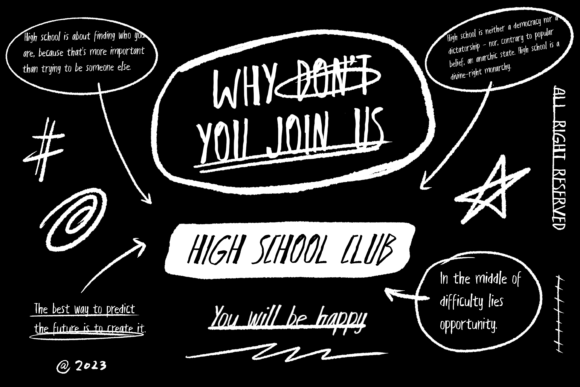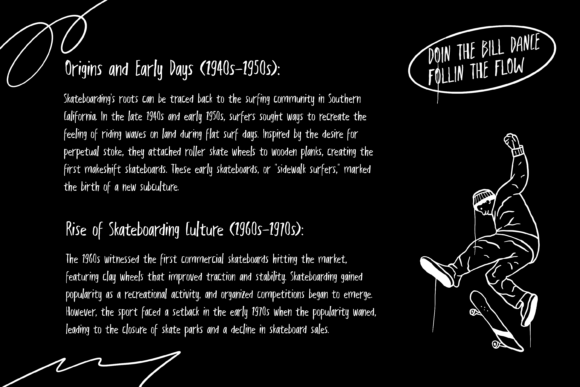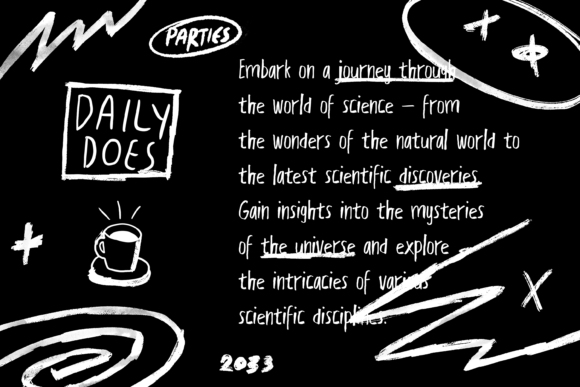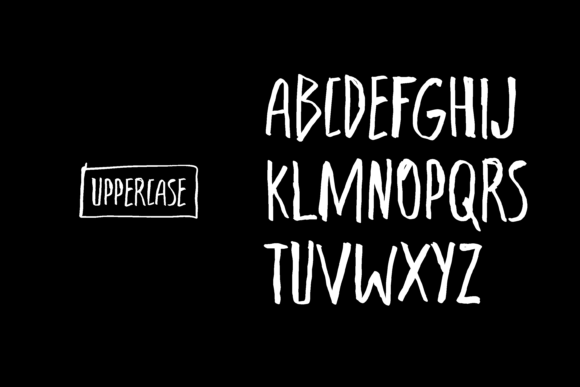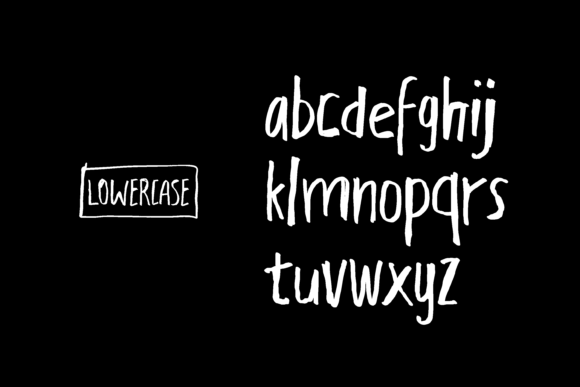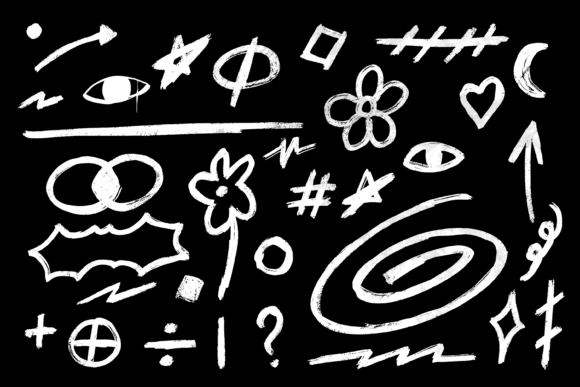
Introduction to Raw Poison Font
Have you ever stared at a blank canvas, waiting for the perfect font to bring your creative project to life? For designers, finding the right typography can be a daunting task, but what if you stumbled upon a font that not only complements your design but also adds a unique touch of authenticity?
Enter the Raw Poison Font, a game-changing design resource that’s about to revolutionize the way you approach typography. With its handcrafted, distressed appearance, this font is perfect for designers looking to add a touch of imperfection to their high-quality designs. From posters to logos, the Raw Poison Font is a versatile tool that can elevate any creative project with its unique character.
What makes the Raw Poison Font truly valuable is its ability to convey a sense of raw, unbridled creativity. Whether you’re working on a free download project or a commercial design, this font is sure to leave a lasting impression. Plus, its transparent background makes it easy to integrate into any design without compromising on quality.
Key Features of Raw Poison Font
- Includes a transparent background, allowing for easy customization and flexibility in design applications.
- Designed with a bold, edgy aesthetic, making it ideal for projects requiring a strong, attention-grabbing visual identity.
- Features a high-resolution design, ensuring crisp and clear display across various mediums and devices.
- Perfect for designers seeking a distinctive and creative design resource for their next project.
Honest Review: Raw Poison Font
- ✨ High quality: The font is crisp and clean, making it perfect for printing and digital use.
- ✨ Versatile: The Raw Poison Font is suitable for a wide range of design projects, from music and art to fashion and lifestyle.
- ✨ Transparent background: This feature allows for seamless integration with other design elements, giving you more creative freedom.
- ⚠️ Limited character set: The font only includes uppercase and lowercase letters, numbers, and a few punctuation marks.
- ⚠️ Not ideal for body text: Due to its bold and playful nature, the Raw Poison Font may not be the best choice for large blocks of text.
Overall, I’m impressed with the Raw Poison Font. It’s a fantastic design resource that can add a unique touch to your creative projects. While it may have some limitations, its high quality and versatility make it a valuable addition to any designer’s toolkit.
Using in Creative Projects
The Raw Poison Font is perfect for creative projects that require a unique and edgy design. You can use it in Canva, Adobe Photoshop/Illustrator, or PowerPoint/Word to add a touch of sophistication to your designs.
Best Practices and Tips
To get the most out of the Raw Poison Font, use it sparingly to create visual interest. Experiment with different font sizes and combinations to create a striking design. Also, consider pairing the font with other high-quality design resources to enhance its impact.
The Raw Poison Font is commonly used in:
- Marketing materials, such as brochures and flyers
- Infographics and data visualizations
Alternatives to Raw Poison Font
Fontin is a modern sans-serif font ideal for creative projects that require a high level of sophistication. It features a transparent background and is available for free download. When to use: This font is suitable for designs that require a touch of elegance and refinement.
Comparison to Raw Poison Font: Fontin is more refined and elegant compared to Raw Poison Font, making it a better choice for corporate designs or high-end creative projects.
Playfair Display is a luxurious script font that is perfect for adding a touch of sophistication to your design. It features a high-quality design and is available for free download. When to use: This font is ideal for creative projects that require a sense of luxury and elegance.
Q: Does the Raw Poison Font have a transparent background?
Yes, the Raw Poison Font has a transparent background, making it easy to use on various backgrounds and designs. This feature allows for seamless integration with other design elements, giving you more flexibility and creative control over your project.